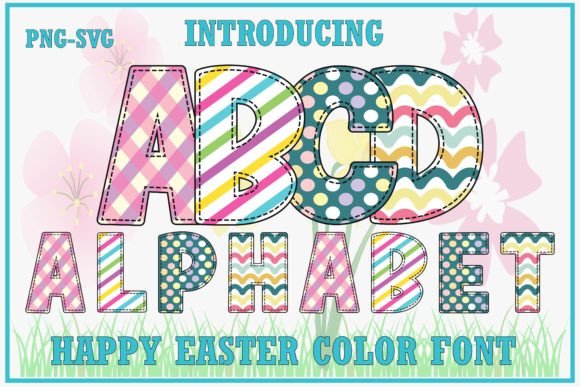
Looking for a font that screams "fun" and "energetic"? Look no further than the Happy Easter Font from the creative minds at Color Studio.
This colorful font family is perfect for adding a burst of energy to your designs, making it a great choice for headlines, logos, and social media graphics. With its vibrant hues and playful design, Happy Easter font stands out from the crowd and is sure to catch the eye of anyone who sees it.
Choose from a range of bright colors to make a bold statement that's impossible to ignore. Whether you're designing a flyer for an upcoming event, creating eye-catching social media posts, or crafting a standout logo for your brand, this font is the perfect choice for adding a touch of fun and whimsy.
So why choose Happy Easter font? For starters, it's unique and eye-catching, making it perfect for standing out from the crowd. It's also incredibly versatile, making it a great choice for a wide range of design projects. Plus, with its playful and vibrant design, it's sure to put a smile on the face of anyone who sees it.